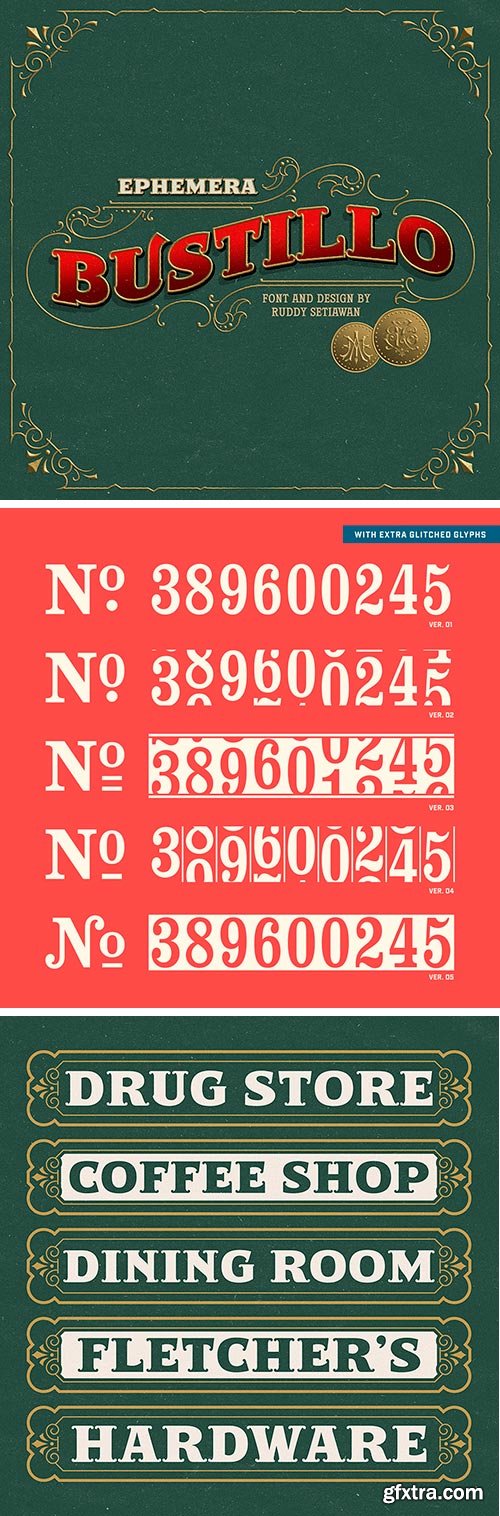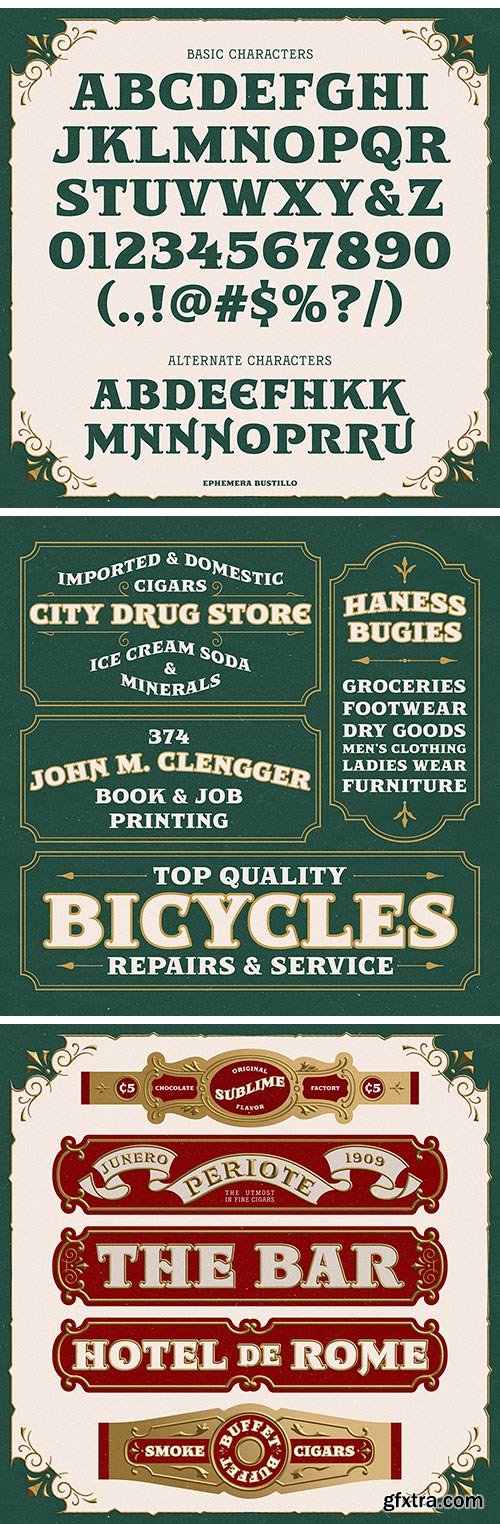
This all-caps font has been on the range so long it smells like dry tobacco & whiskey. Captures the lively essence of cigar labels advertising typography with a collection of original designs. As perfect today for initials and short headlines as it was when it was created.